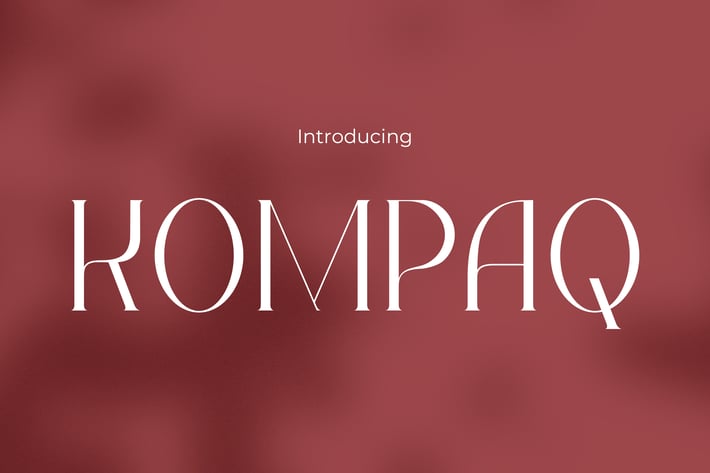
Fashion Font - Kompaq
KOMPAQ - Modern Luxury Font
Redefining grace with razor-sharp lines, KOMPAQ is a high-contrast serif that pairs slender elegance with confident stature. Its ultra-slim stems and wide letterforms evoke the refined tension of a luxury perfume label or fashion editorial. Designed to shine in high-end branding, packaging, and headline design, KOMPAQ carries a clean, sculptural presence that balances tradition with modern minimalism. Every curve and serif detail is meticulously crafted to turn heads — whether it’s across a billboard or a quiet luxury product box.
Typography isn’t just visual — it’s emotional. KOMPAQ delivers that feeling of quiet power. From interior design brands to boutique fashion studios and editorial campaigns, this font makes your message look like it belongs on the cover of a design magazine. It’s the perfect blend of luxury and restraint, offering timeless style for creators who value sharpness with soul.
Make your message unforgettable with KOMPAQ — a graceful yet commanding serif crafted for designers who live in the details. Use it to elevate your typography and give your next brand or campaign the precision it deserves.